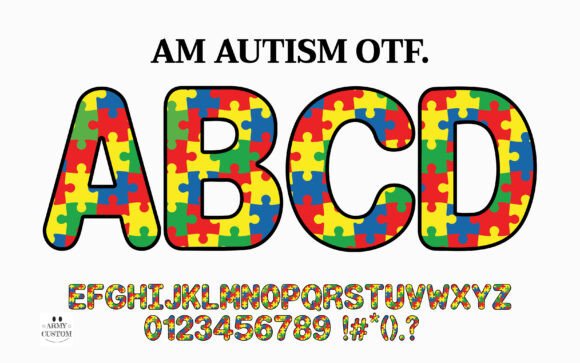
The Power of Typography: Discovering the AM Autism Font
I’ll never forget the moment I was working on a project to create awareness about Autism, and I was struggling to find the right font that would convey the message with the desired impact. The client was looking for something bold, yet sensitive; something that would make a statement without being too overwhelming. That’s when I stumbled upon the AM Autism font, and it completely changed the game for me. In this article, I’ll share my experience with this incredible typeface, its features, and how you can make the most of it in your designs.
What I Love About the AM Autism Font ✨
- ✅ The bold and striking lettering that immediately grabs attention
- ✅ The vibrant and meaningful design that perfectly captures the spirit of Autism Awareness Month
- ✅ The versatility of the font, which can be used in various design projects, from posters to social media graphics
- ✅ The emotional connection it creates, making it an excellent choice for projects that require empathy and understanding
The Story Behind the AM Autism Font
The AM Autism font was created with the intention of raising awareness and promoting acceptance of Autism. The designer aimed to craft a typeface that would not only be visually striking but also convey a sense of unity and affection. By using this font, designers can create projects that are not only aesthetically pleasing but also meaningful and impactful.
Q: What is the AM Autism font, and what is it used for?
A: The AM Autism font is a bold and striking typeface designed specifically for Autism awareness projects. It’s ideal for creating impactful visual narratives that capture the spirit of the cause.